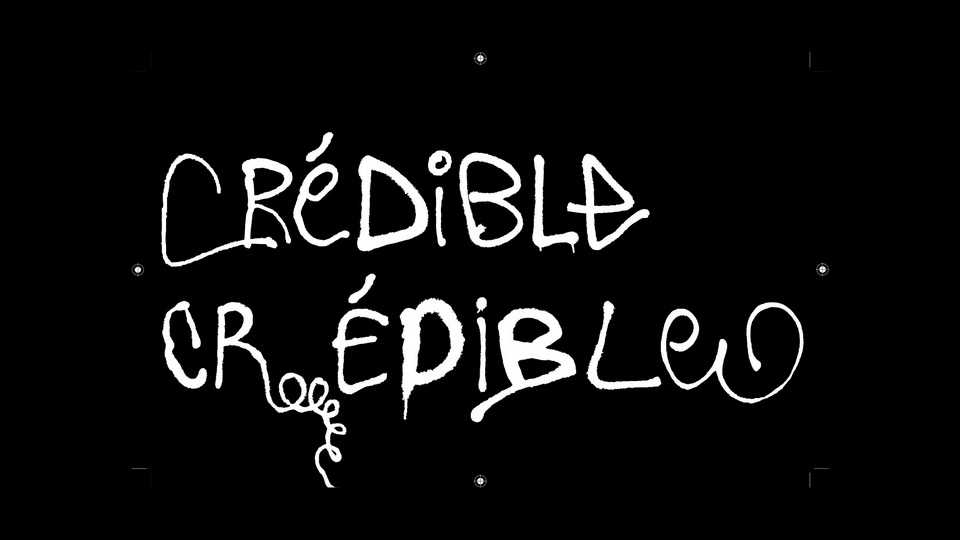
Download Crédible font, a hand lettered typeface for the streets, by the streets. Crédible is made of glyphs collected from diverse tags and graffiti found in the streets.